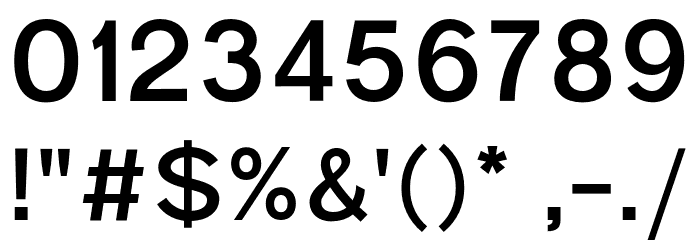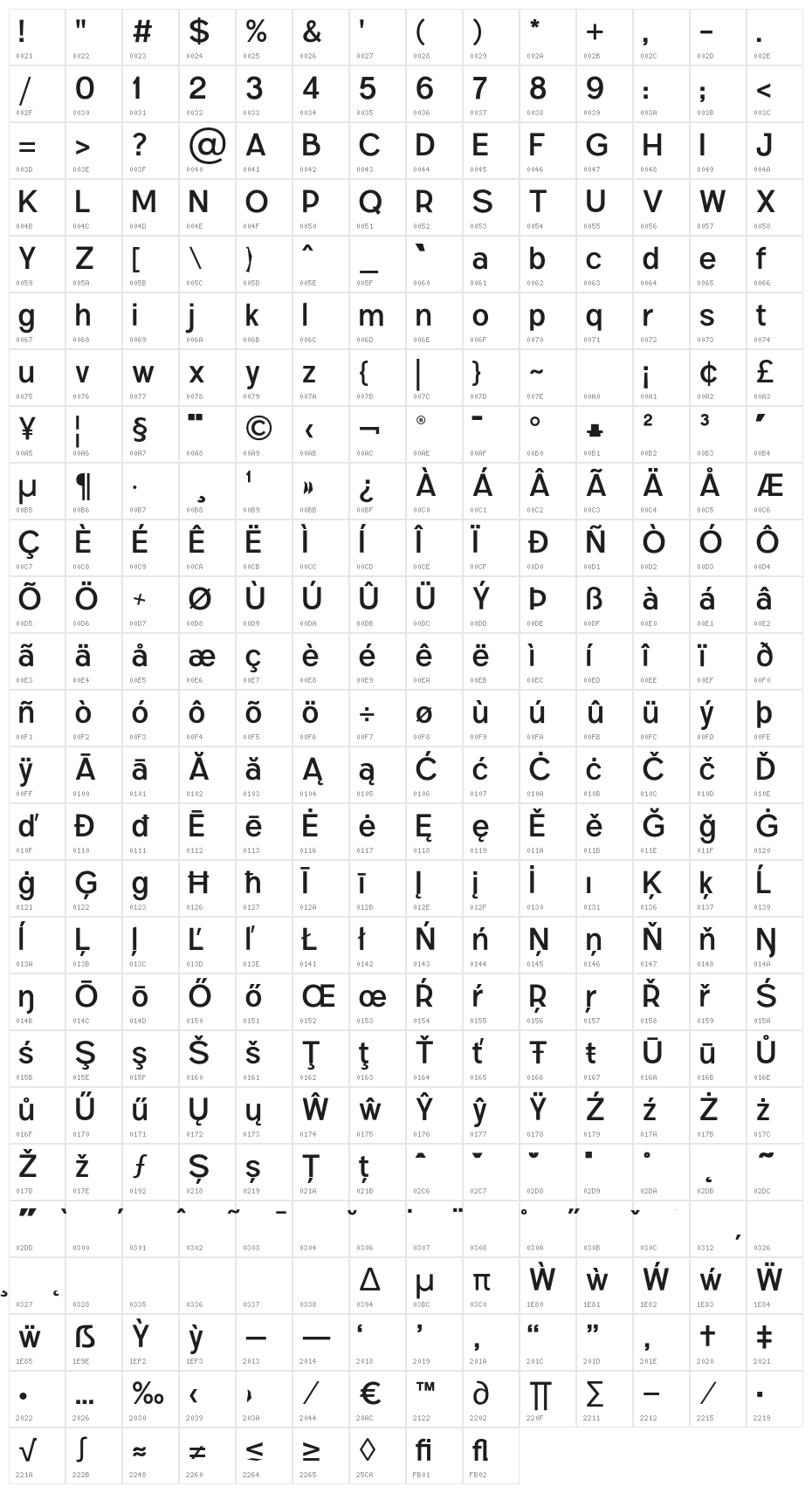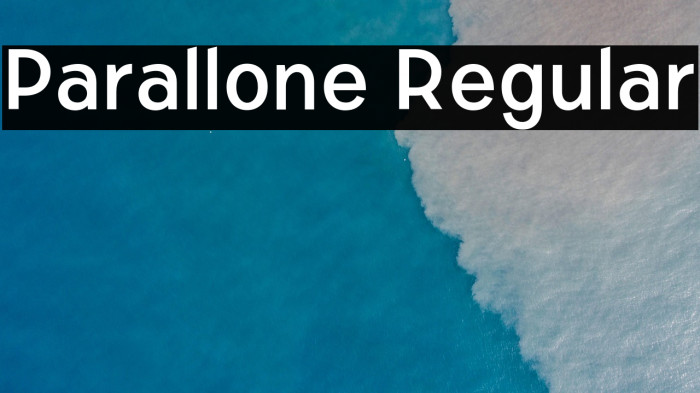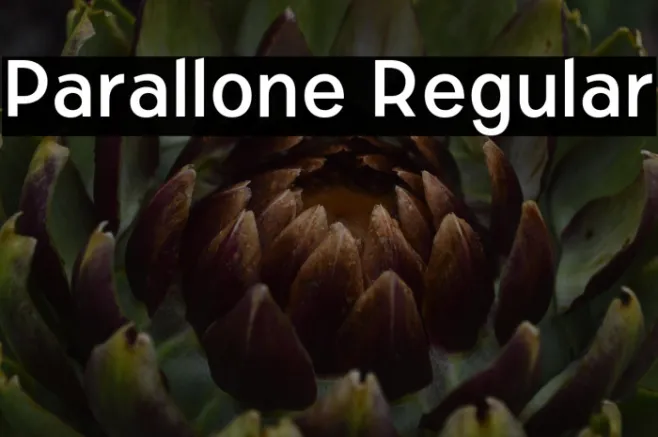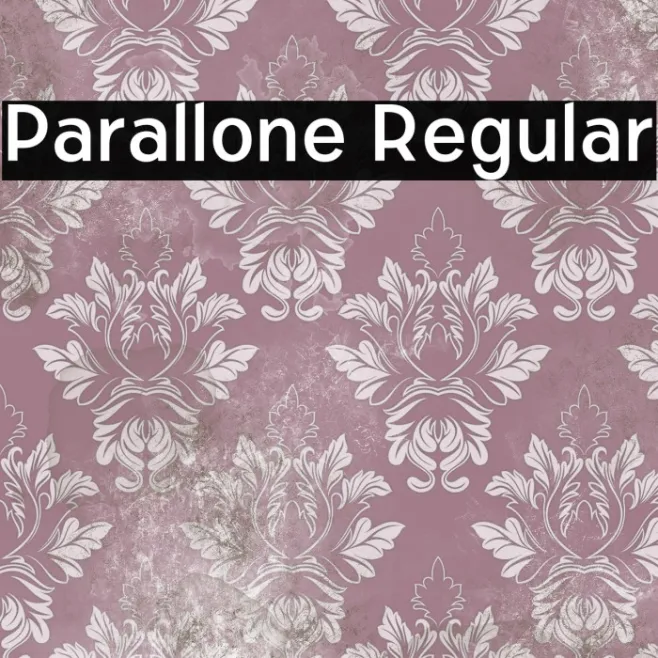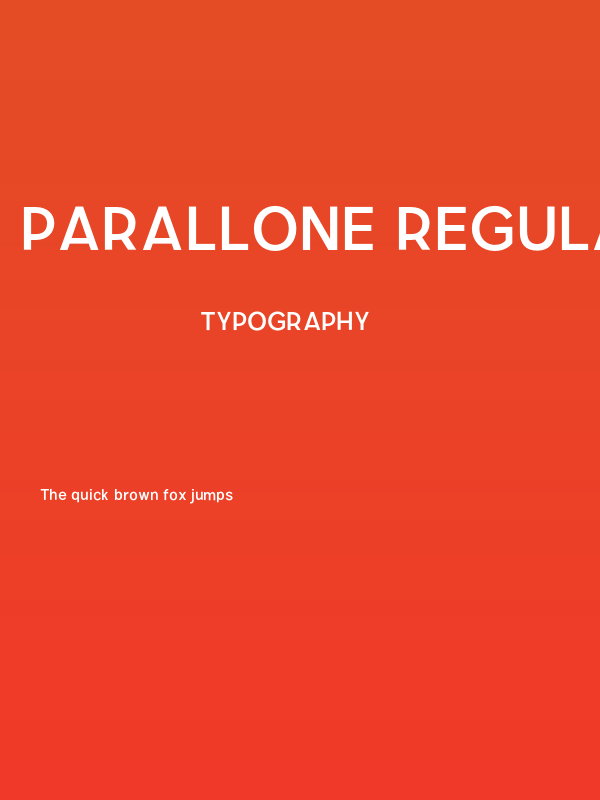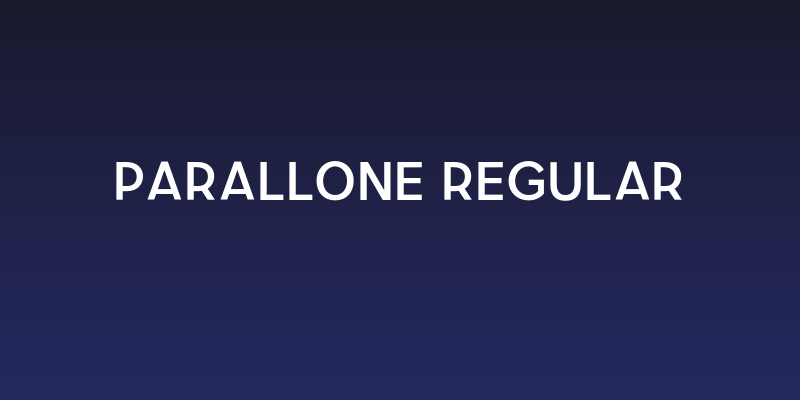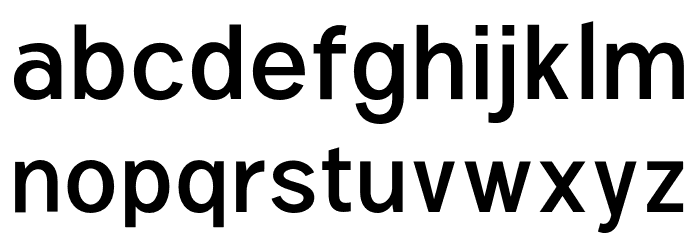
Parallone Regular Font
Parallone Regular Description
This font features a clean and modern sans-serif design, characterized by its geometric shapes and uniform stroke widths. The uppercase letters are bold and assertive, while the lowercase letters maintain a consistent and balanced appearance. The numerals are clear and easily distinguishable, making them suitable for various applications. The special characters are well-integrated, maintaining the overall aesthetic of the font. Its simplicity and clarity make it versatile for both digital and print media.